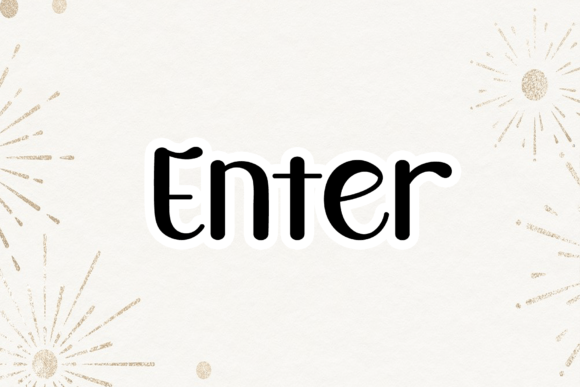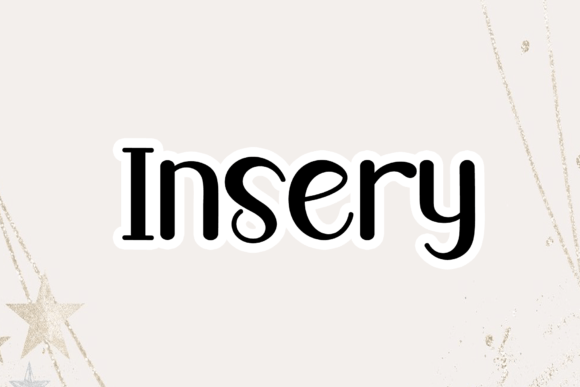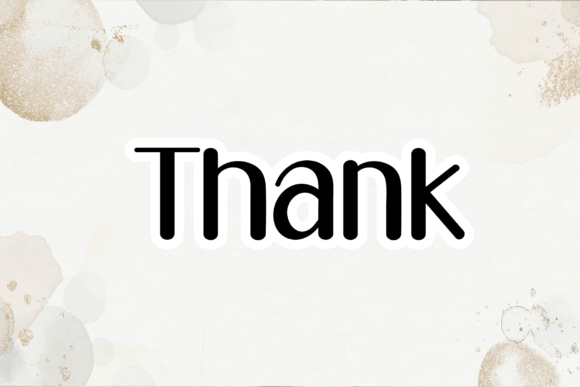
Happy New Year Font
About Happy New Year Font
Happy New Year Font is a classic and simple handwritten typeface created with a spontaneous, freestyle approach. Its natural and relaxed style makes it versatile for a wide variety of creative projects. Whether you’re designing logos, headlines, corporate or brand identities, apparel, posters, music covers, movies, or social media graphics, Happy New Year brings an authentic, approachable, and lively feel to your designs.
Classic and Freestyle Design
Happy New Year features random, free-flowing letterforms that add personality and charm without sacrificing readability. Its classic handwritten style feels warm and casual, making it perfect for projects that need a personal and artistic touch.
Ideal Uses for Happy New Year Font
This font suits numerous design applications, including:
• Logos and brand identities
• Headlines and editorial layouts
• Corporate branding and apparel design
• Posters, music albums, movie titles, and game covers
• Magazines, books, comics, and cartoons
• Social media content for YouTube, Instagram, and websites
Its flexibility makes it ideal for many creative fields.
Why Choose Happy New Year Font?
Designers value Happy New Year for:
• Classic, casual handwritten aesthetics
• Freestyle, organic letterforms
• Versatility across print and digital media
These features make it a practical and expressive choice for diverse projects.
Add Authenticity and Charm to Your Designs
Typography shapes your project’s tone. Happy New Year adds a genuine, friendly vibe that helps your designs connect emotionally. Whether for branding, editorial content, or social media, this font delivers creativity and warmth.
In conclusion, Happy New Year Font is a classic and simple handwritten script with a freestyle look. Perfect for logos, branding, headlines, and much more, it offers versatility and authenticity. Add Happy New Year to your font collection for lively and stylish designs.